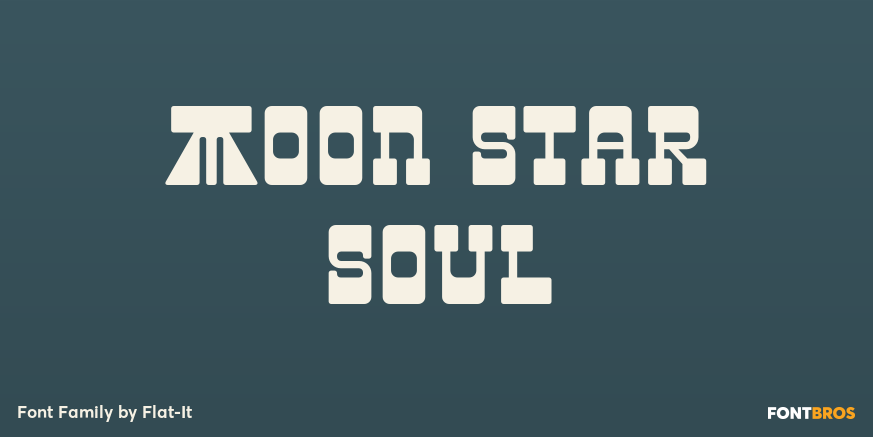
HomeFont BrosGroovy (1966-1978)Moon Star Soul Groovy (1966-1978) Moon Star Soul FacebookXPinterestWhatsApp 1 of 1 About Moon Star Soul Based on retro vinyl records in the early and middle of 20th century. The mixture of funky, hippie and mid-century\’s futuristics.  DOWNLOAD ON FONT BROSThis font is sold and delivered by Font Bros. Font Canyon may earn a commission if you buy through this link. People also explored Lovely Angelicia Font Dreamer Font Quick Counters Font Hikren Font Wedding Font Futuristic Font Ayunda Font Flamingo Font Qufiz Script Font 288 0 TagsMoon Star Soul Font Previous articleHackensackNext articleGonte LEAVE A REPLY Cancel reply Comment: Please enter your comment! Name:* Please enter your name here Email:* You have entered an incorrect email address! Please enter your email address here Website: Save my name, email, and website in this browser for the next time I comment. Personal Use Free Avagan Personal Use Free Read more about this font Farmgarden Personal Use Free Read more about this font Puisi Adinda Personal Use Free Read more about this font Cottage Personal Use Free Read more about this font BLOG How to Install and Use Fonts on Windows, macOS, and Web Projects How to Install and Use Fonts on Windows, macOS, and Web Projects Fonts are a crucial part of design and branding. Whether you’re designing a... 5 Fonts That Will Dominate Design Trends in 2026 Modern Sans-Serif Fonts That Brands Love in 2025 Transform Your Website: Elevate Your Typography with 7 Best Web Font Generators